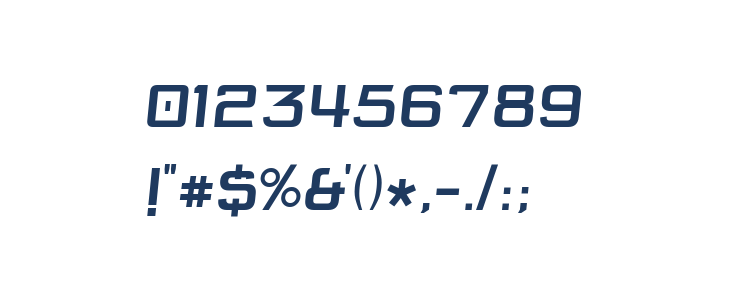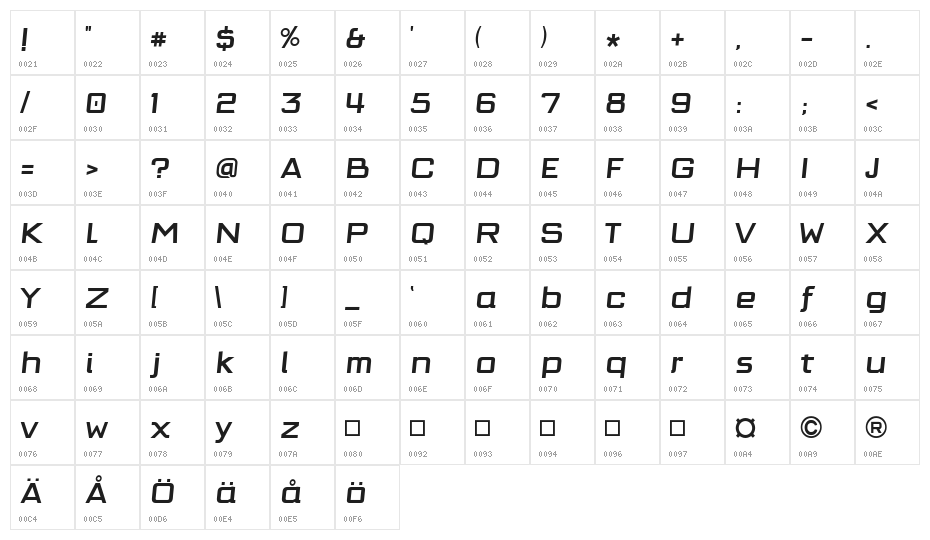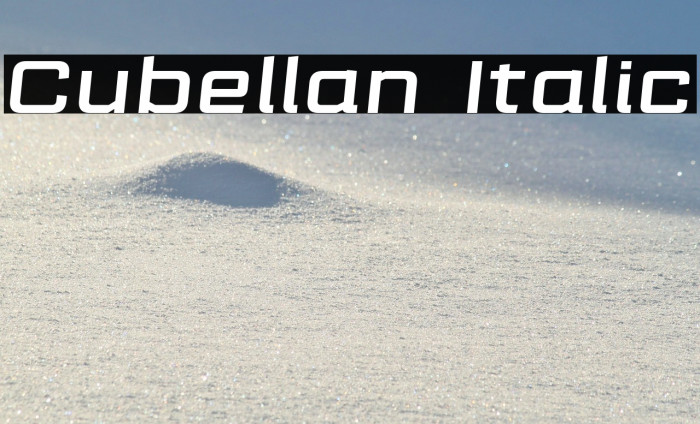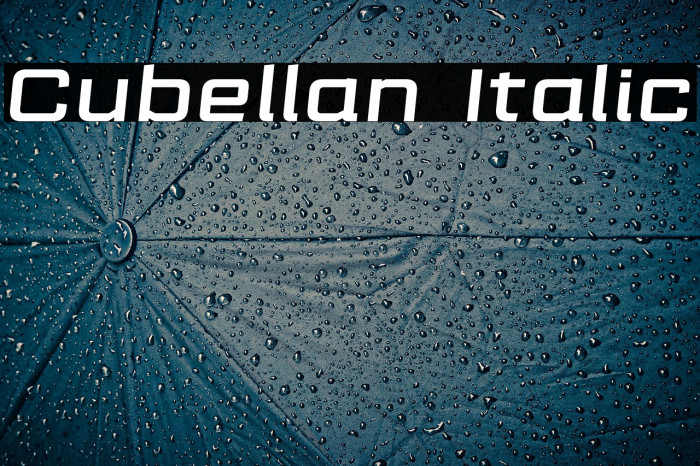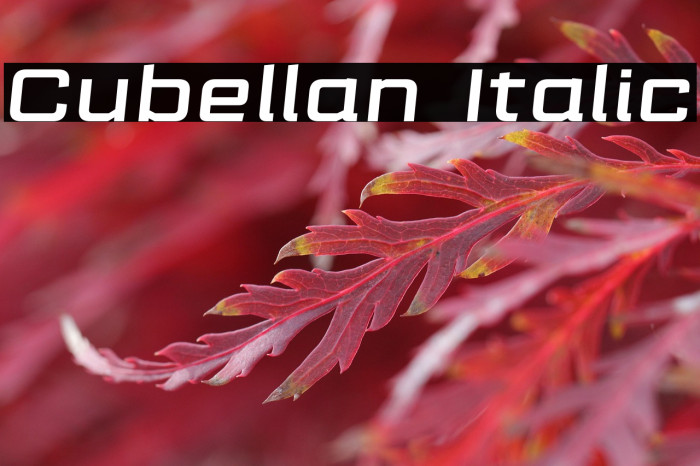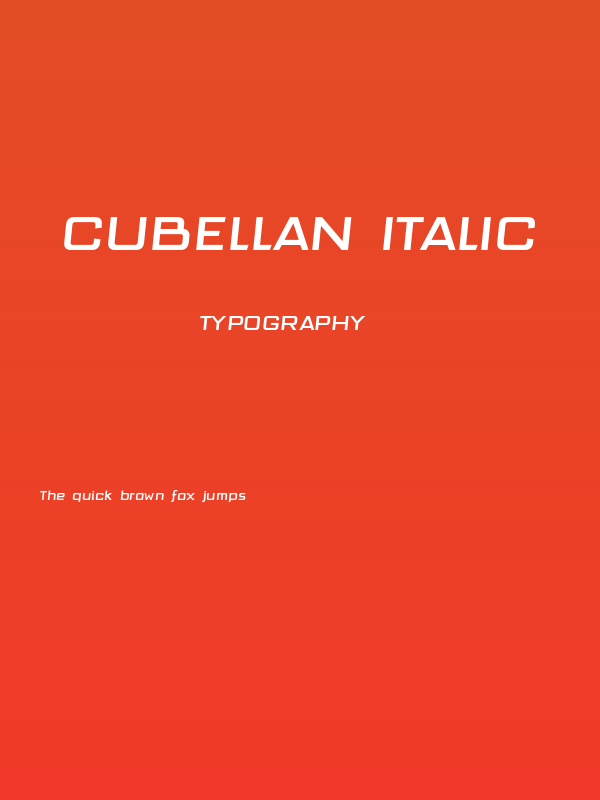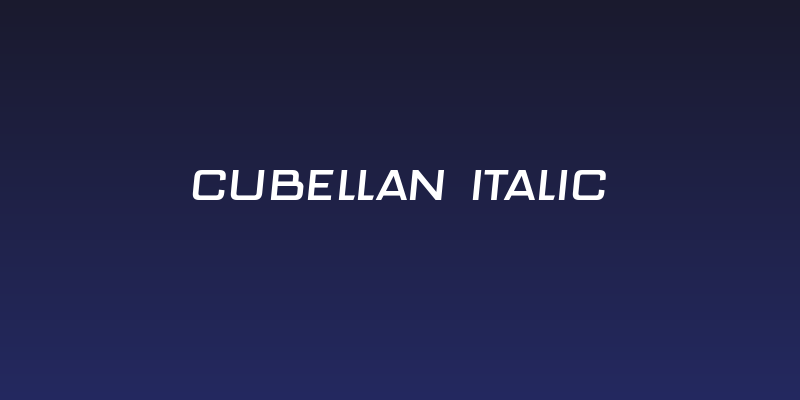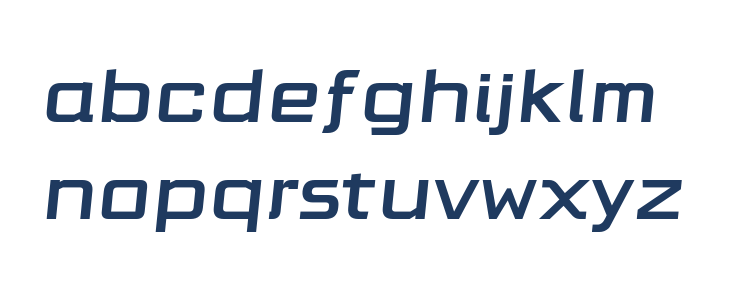
Cubellan Italic Font
Cubellan Italic Description
This font features a sleek, italicized design with a modern and slightly futuristic aesthetic. The characters are clean and angular, with a consistent slant that adds a dynamic feel. The uppercase letters are bold and commanding, while the lowercase letters maintain a smooth flow. Numbers are distinct and easily readable, and the special characters complement the overall style. The font's geometric structure and sharp edges make it suitable for contemporary design projects.